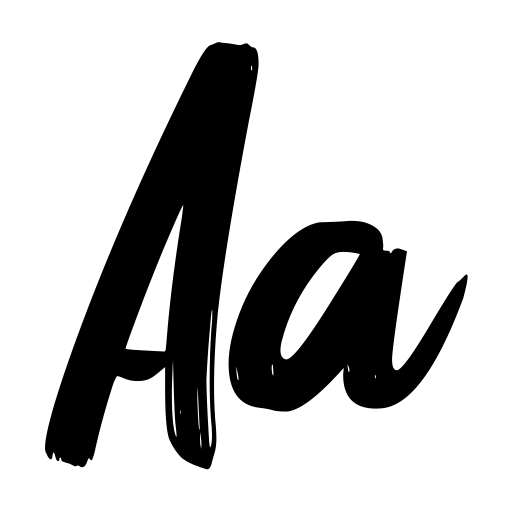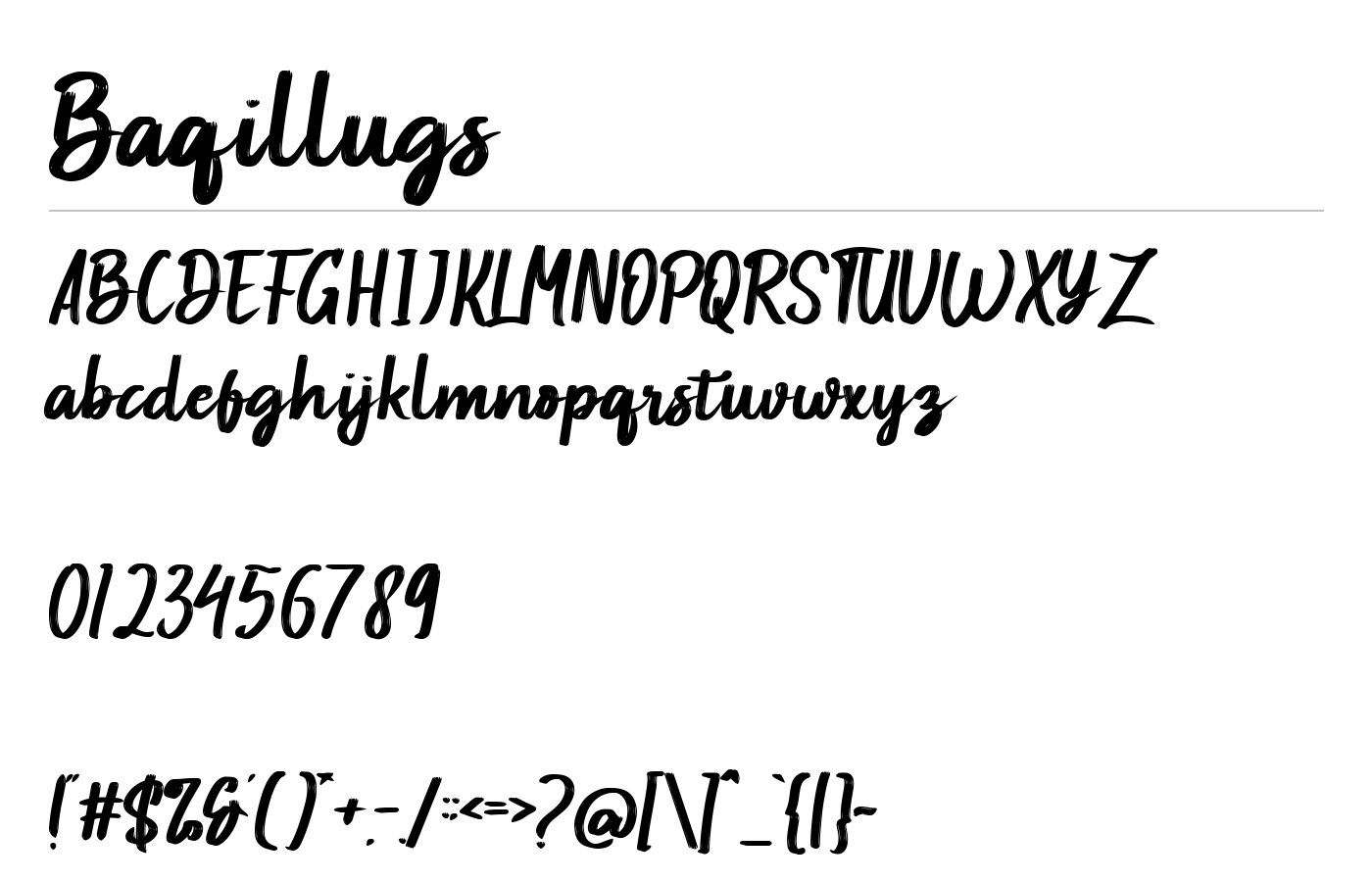
Baqillugs is a lively script font with a bold, brushstroke style that feels energetic and personal. Its tall, slightly condensed letterforms and casual yet clear design make it perfect for adding a friendly, handcrafted touch to headlines, logos, or creative projects where personality and impact matter. This font works well for branding, posters, and social media graphics seeking a vibrant and approachable feel.
Baqillugs Font
About Baqillugs Font